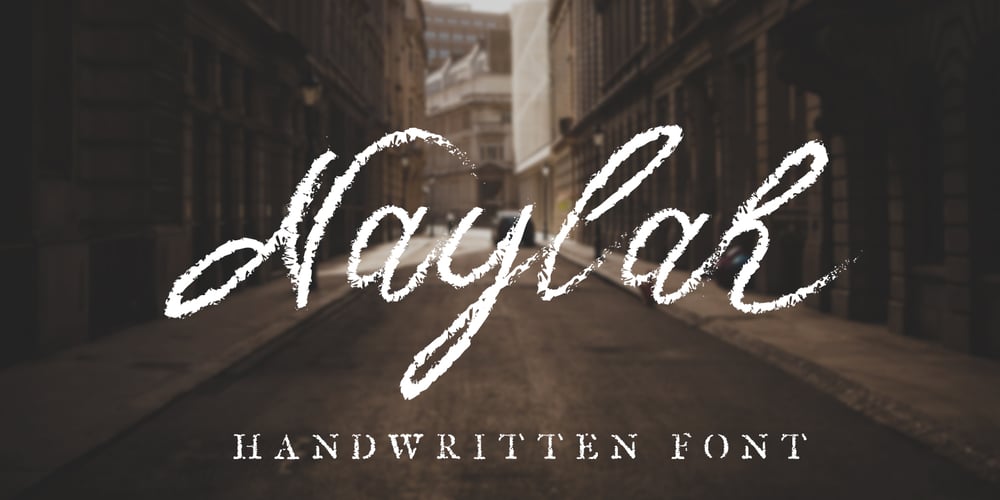
Naylah
Naylah font
Naylah Font Family was designed by Asep Rendi and published by Arendxstudio. Naylah contains 3 styles and family package options. Naylah is a casual handwritten font with personal charm. With a quick sweep and a very different style, Naylah is perfect for branding projects, household design, product packaging – or as an overlay. Nalyah Alt and Alt 2 contain alternative characters, with lowercase and uppercase characters that are completely new. If you want to avoid the letters that are visible all the time to recreate custom styles, or try different tenses, just switch to this font for additional layout options. Naylah includes ligatures for several lowercase letters (double letters that are more natural). This can only be accessed through software with different devices or flying machine panels, eg Photoshop / Illustrator. Come and say hello on Instagram! https://www.instagram.com/aseprendii.otf/